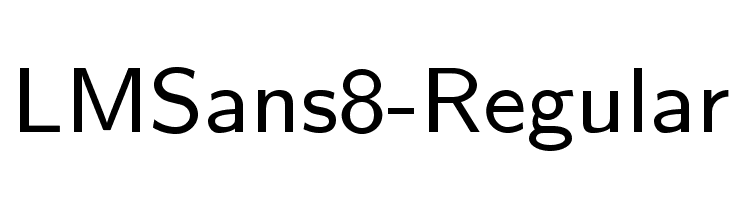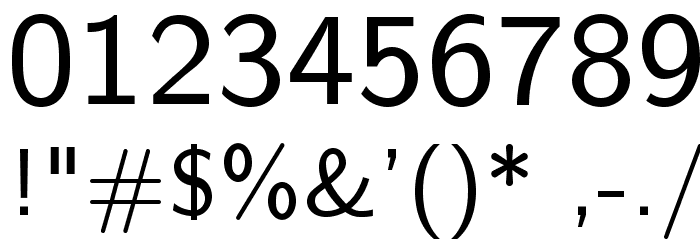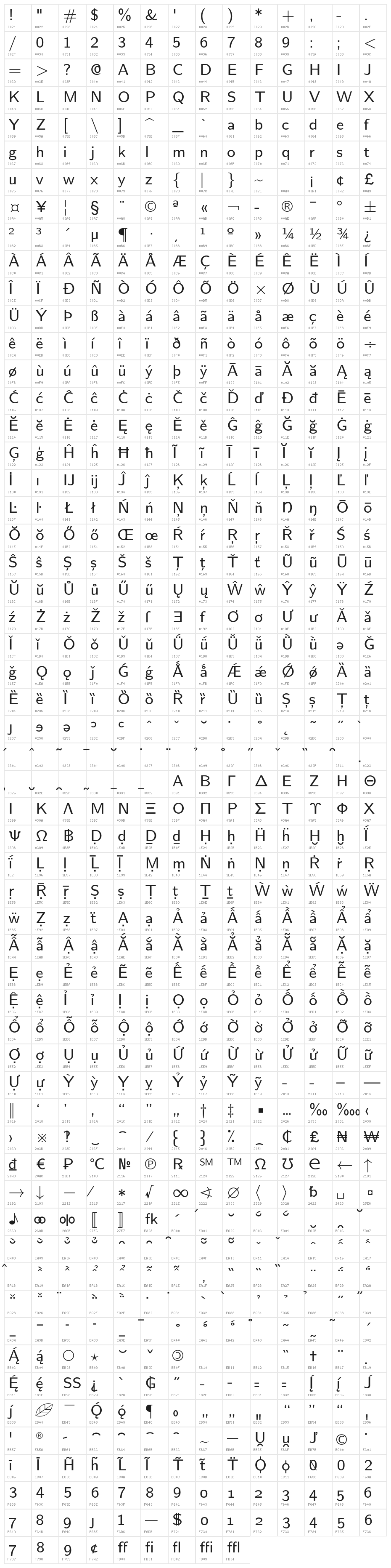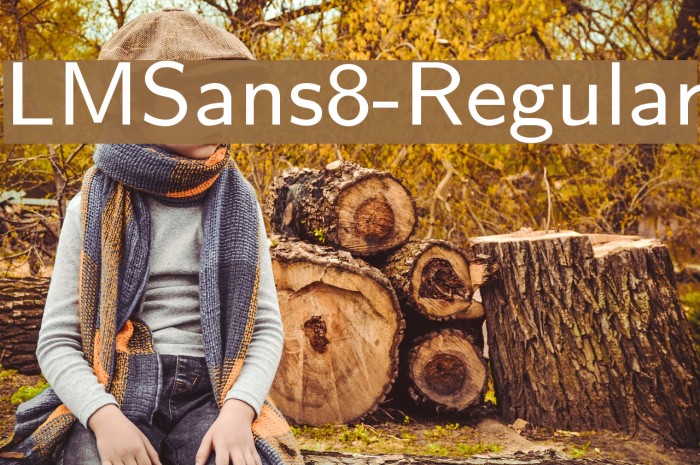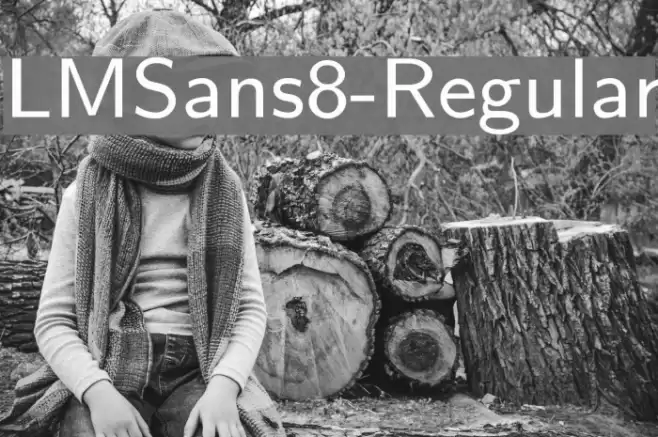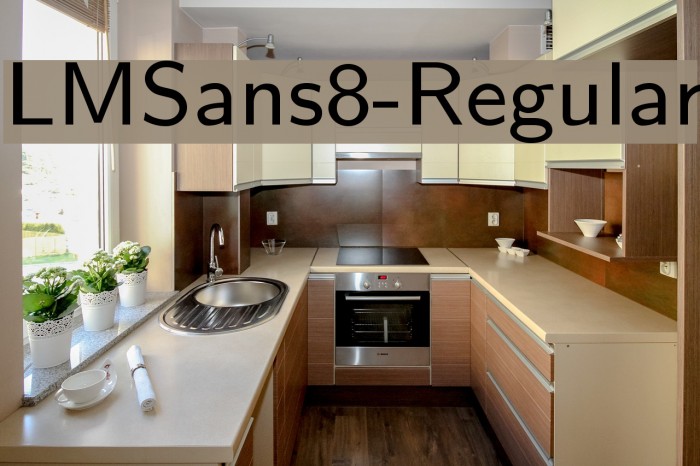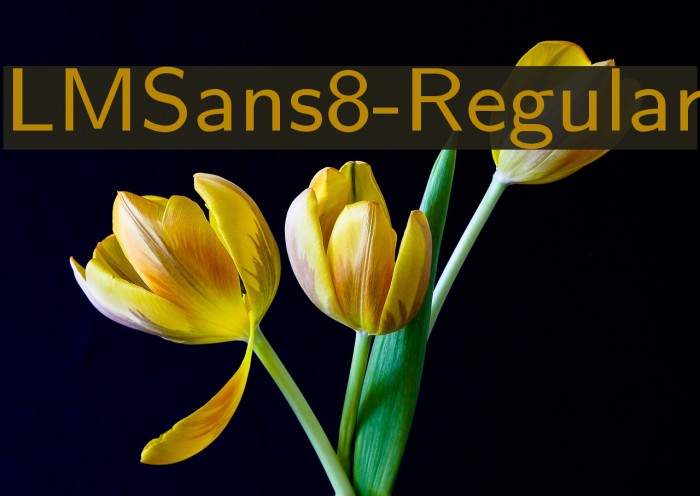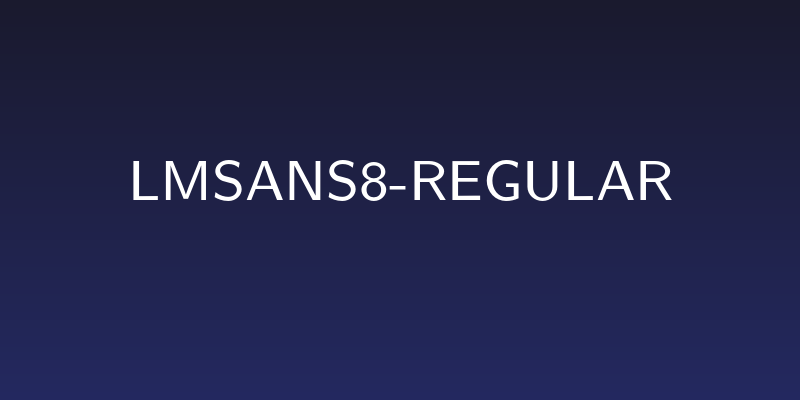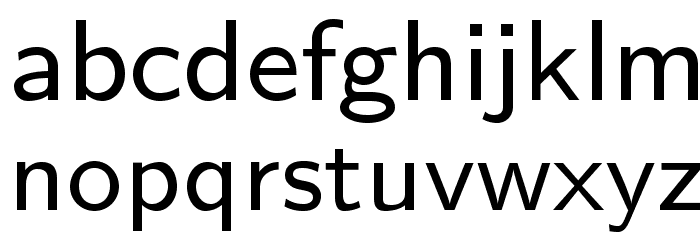
LMSans8-Regular Font
LMSans8-Regular Description
This typeface presents a clean and modern aesthetic with its sans-serif design. The characters are well-proportioned, featuring a uniform stroke width that contributes to its readability. The uppercase letters are slightly taller than the lowercase, providing a balanced visual hierarchy. The numerals are clear and distinct, making them suitable for both text and numerical data. Special characters are designed with simplicity, ensuring they complement the overall style without distraction. The font's simplicity and clarity make it versatile for various applications.